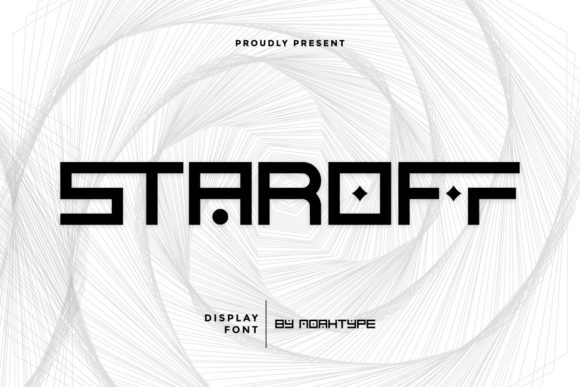
Prepare yourself to voyage into the captivating universe of Staroff, the sans serif font that shatters the boundaries of the ordinary and propels your designs into the realm of the extraordinary! Its futuristic flair breathes life into your digital creations, instilling them with an aura of sleekness and boundless possibility.
With Staroff, the cosmos of design is at your fingertips. Its versatility knows no limits, making it the perfect companion for a myriad of celestial adventures, from interstellar logos and cosmic branding to supernova posters and galactic headlines. Its characters dance across the digital canvas like celestial bodies, beckoning you to explore the uncharted territories of your imagination.
The celestial beauty of Staroff extends beyond mere aesthetics. Its PUA-encoded nature unlocks a treasure trove of hidden glyphs and effervescent swashes, empowering you to infuse your designs with a touch of cosmic whimsy. Each glyph is a miniature masterpiece, meticulously crafted to ignite a spark within your creative soul.
Embark on this interstellar journey with Staroff, the sans serif font that will transform your designs into shining stars. Its otherworldly charm will captivate your audience, leaving them lost in the boundless depths of your imagination.